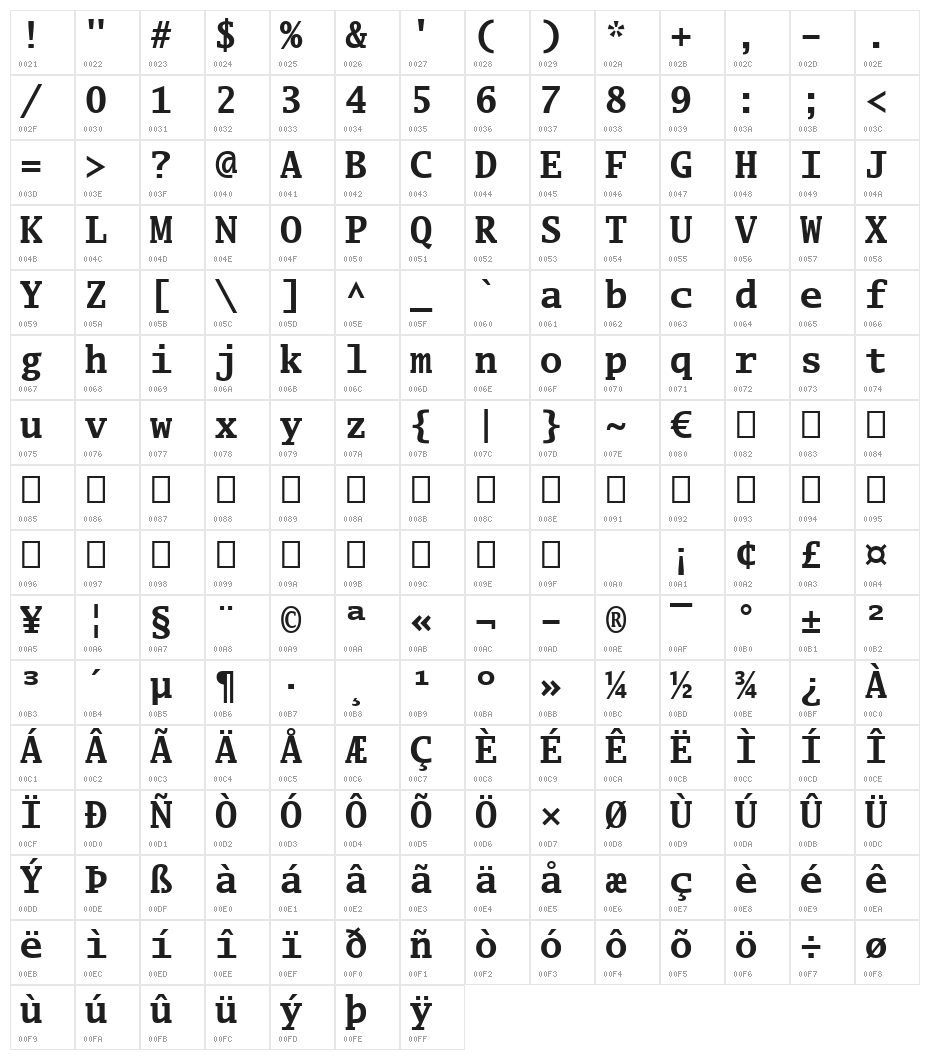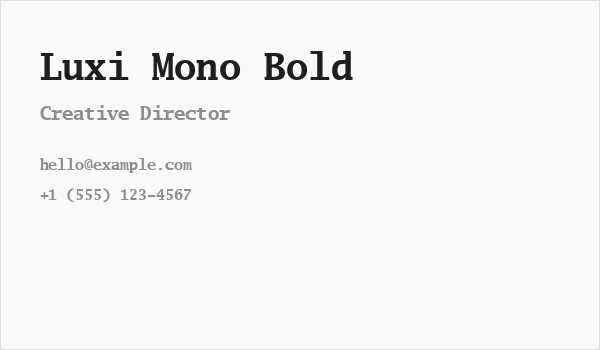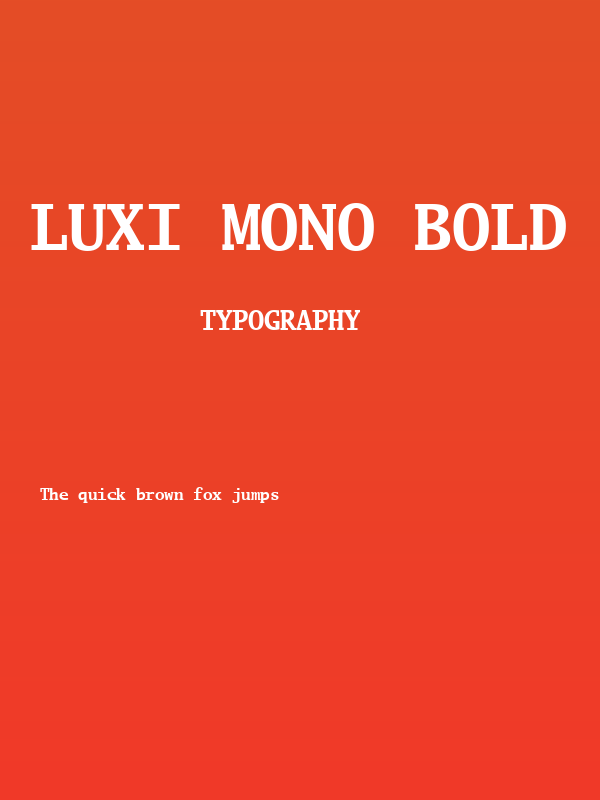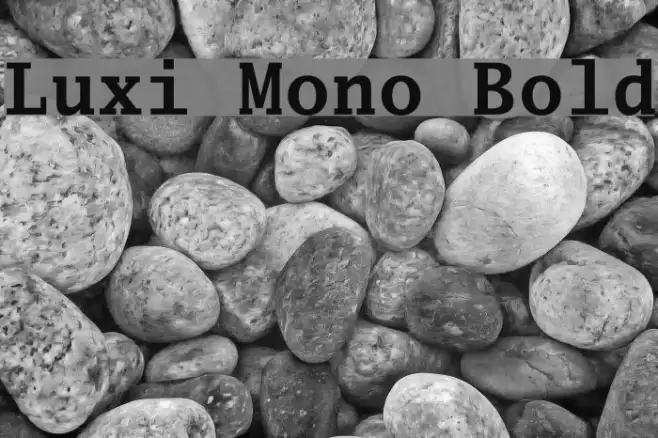
Luxi Mono Bold Font
Luxi Mono Bold Description
This font exhibits a bold and structured appearance, characterized by its monospaced design where each character occupies the same amount of horizontal space. The uniformity in character width makes it ideal for coding and tabular data, ensuring alignment and readability. The bold weight enhances its presence, making it suitable for headings and titles that require emphasis. The font features clean lines and a modern aesthetic, with a slight slab serif touch that adds a hint of traditional style. Its high contrast in stroke thickness contributes to its legibility, even at smaller sizes. The overall style is a blend of modern and classic elements, making it versatile for various design applications.
| Overall Style | Modern, Classic |
| Use Case | Headlines, Coding, Technical Documentation |
| Proposed Projects | Perfect for coding environments, technical documentation, data tables, and bold headlines. |